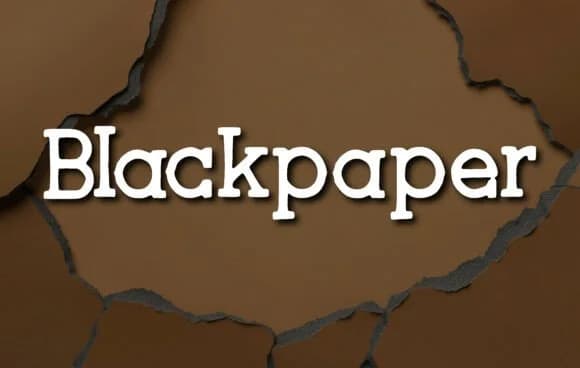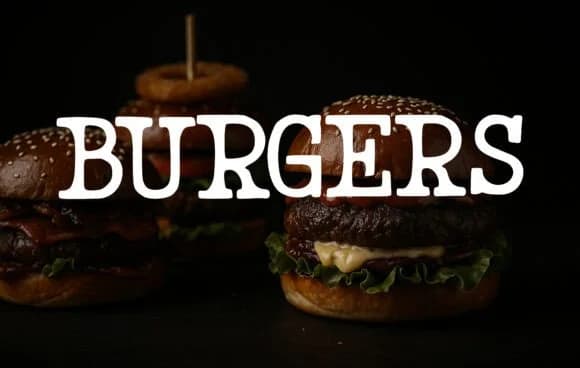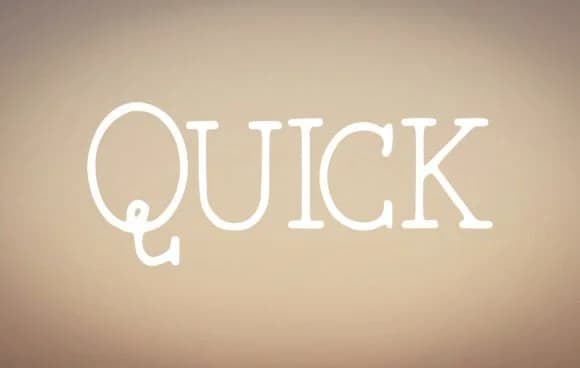
Neon Maverick by OliviaFontCo is a handwritten slab-serif that threads a careful needle between playful character and genuine legibility. The typeface carries a distinctly retro energy without feeling dated or overly kitschy, positioning it as equally comfortable and effective in contemporary design work and in vintage-inspired projects where authenticity and visual personality genuinely matter to the narrative you're building.
This font shines across print applications where personality and visual confidence create genuine impact. Consider using it for wedding invitation suites, where its handwritten warmth adds authentic humanity without sacrificing readability, and for vintage poster design, where the structured letterforms anchor compositions with substantial visual weight. The same structural qualities render it an excellent choice for Etsy product labels and boutique skincare packaging, craft project signage, DIY home decor pieces, or educational materials designed for children, where approachability and character matter far more than strict formality.
Because the slab-serif framework gives Neon Maverick a clean, stable backbone, it sidesteps reading as overly casual or whimsical, meaning it carries real typographic authority and personality as both headline and body text in projects demanding a conversational, distinctly human tone. Pull it from Creative Fabrica and see where it takes your next design work.
- Sturdy, Confident, Neon Maverick
Neon Maverick Font is a slab serif font that shines as a display or heading face. Pair it with a clean sans-serif or serif font for body text β the contrast creates a clear hierarchy while the two styles stay balanced and easy to read.
Neon Maverick Font